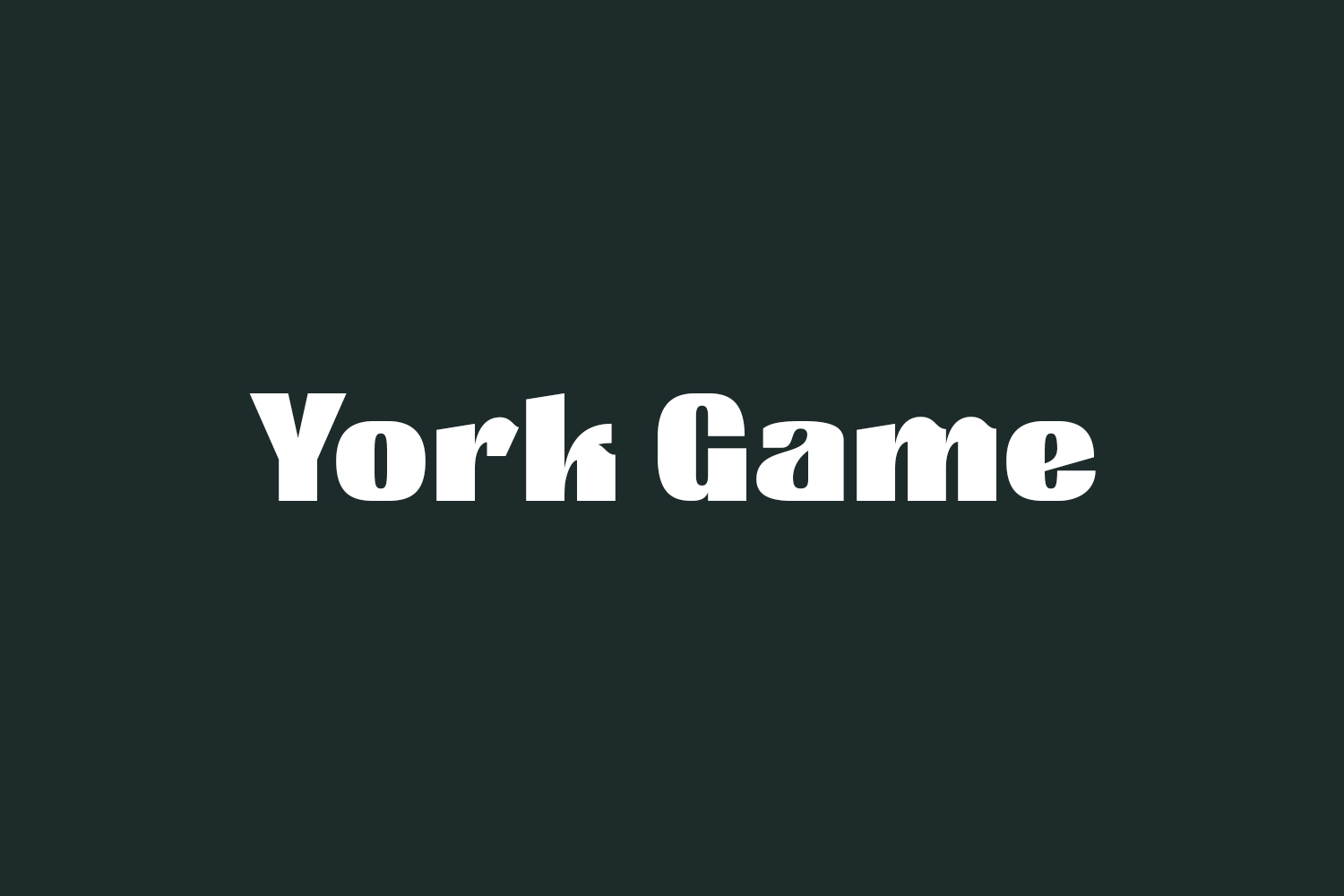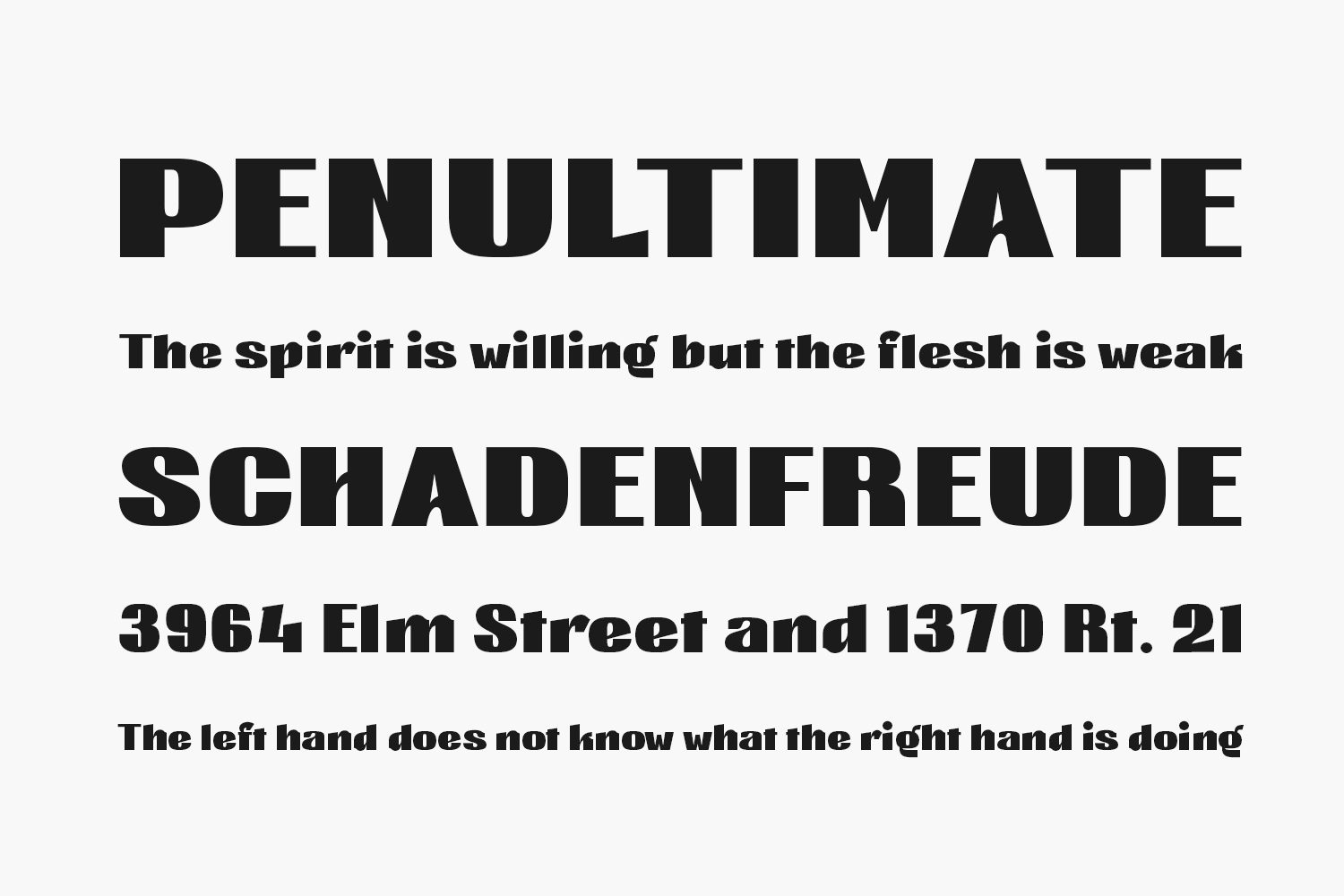
Presenting York Game Free Font, a sleek and modern sans-serif display font delivering impeccable typographic balance, ideal for a myriad of design ventures including logos, branding, social media posts, advertisements, product designs, and beyond. Download the font for free if you need it for personal use or purchase the full version for commercial use.
Designed by Nirmana Visual